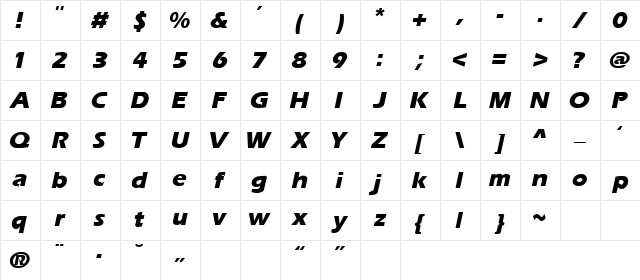
EuroCanal Bold-Italic
Style: Bold-Italic
Design Context for EuroCanal
EuroCanal is a composed and adaptable typeface that performs quietly and consistently across a wide range of design contexts. The slanted form adds forward momentum and visual energy. Its bold stroke weight gives it real presence on the page.
Pro Tip: Use EuroCanal for emphasis, pull quotes, and subheadings where its slanted energy can add rhythm to the layout.